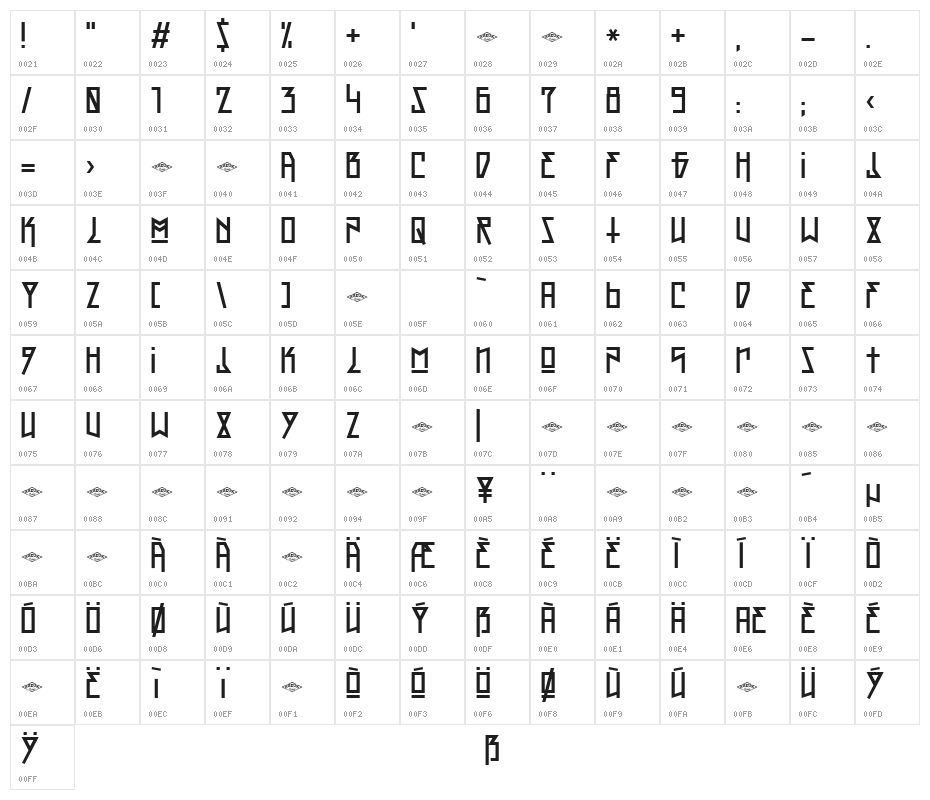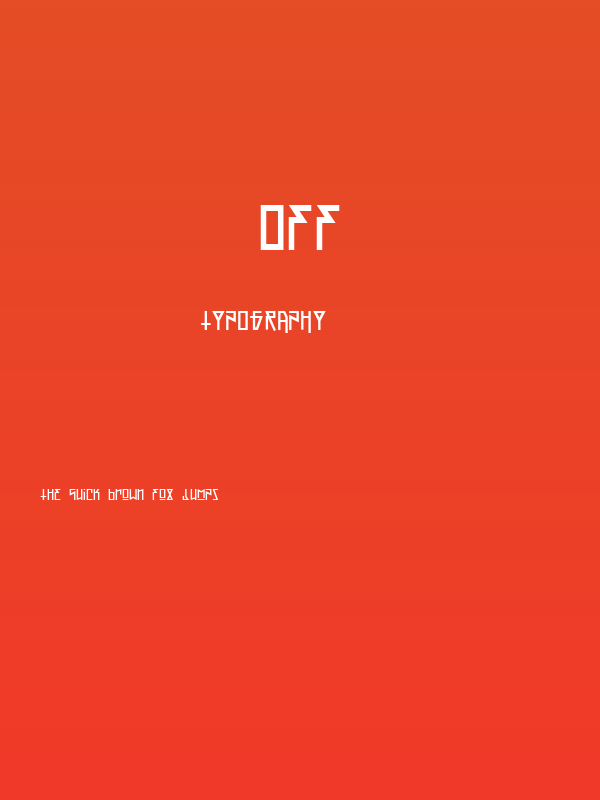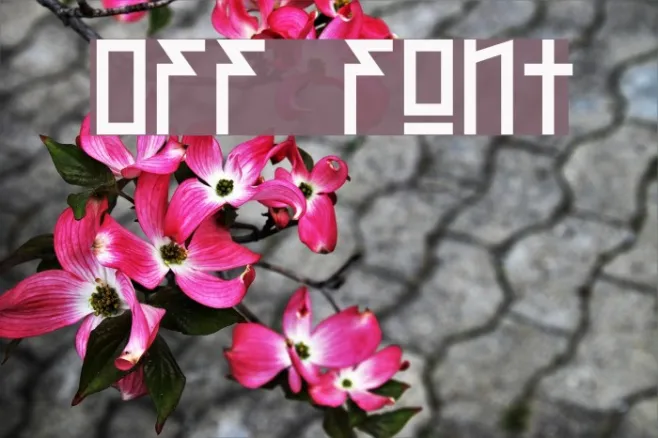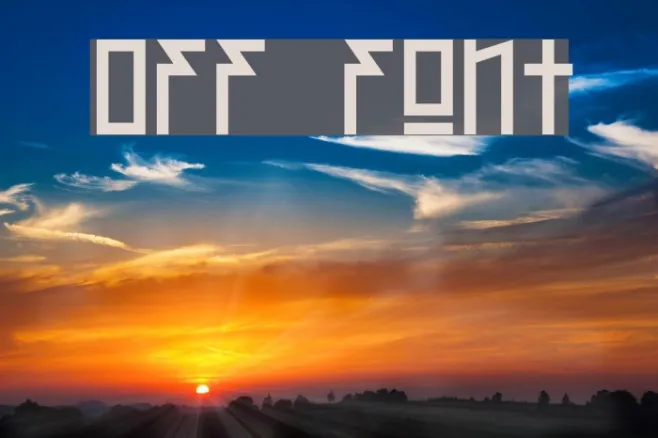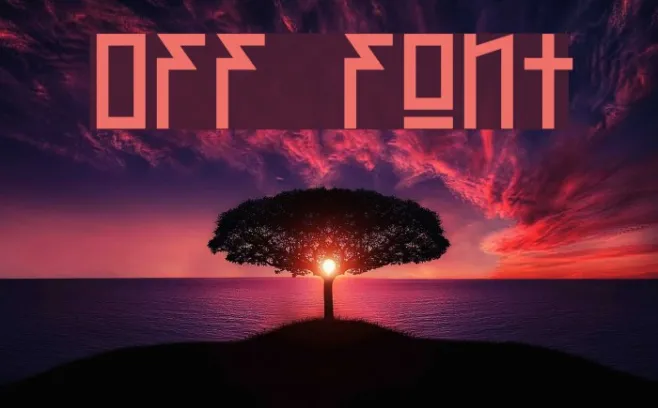
OFF Font
OFF Description
This font features a bold, geometric design with sharp angles and a futuristic aesthetic. The characters are constructed with thick, straight lines and angular forms, creating a sense of strength and modernity. The uppercase and lowercase letters share a consistent style, emphasizing symmetry and uniformity. Numbers and special characters maintain the same bold and angular characteristics, ensuring a cohesive look across all elements. The font's unique style makes it stand out, suitable for projects that require a strong visual impact.
| Proposed Projects | Ideal for branding, posters, album covers, and any project needing a modern, edgy look. |